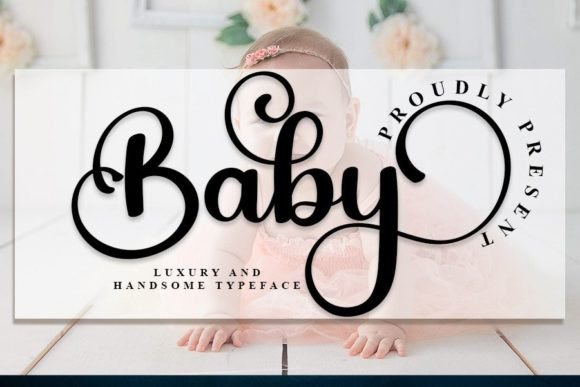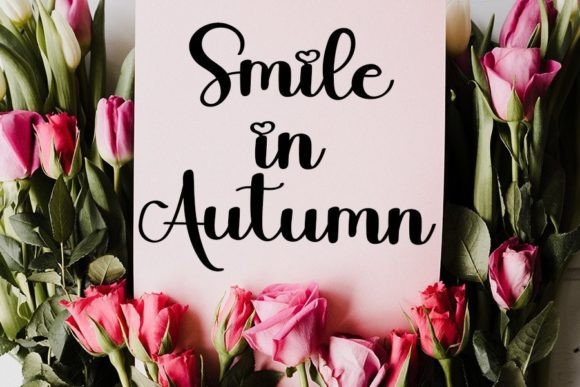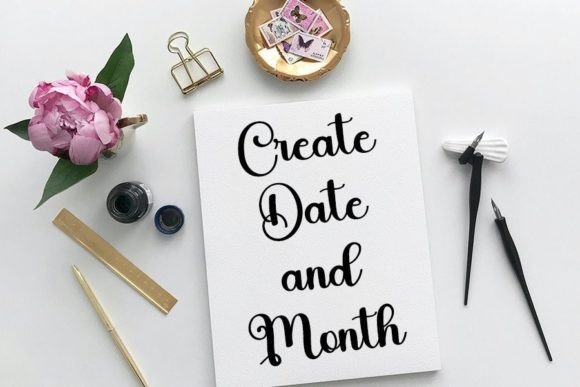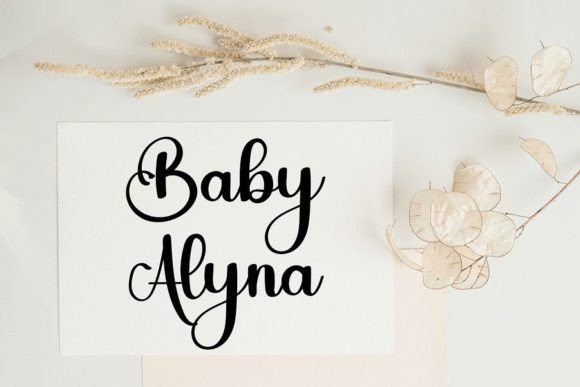
Baby Font
Baby is a beautiful and refined handwritten font. Classy and modern, it is perfect for logos, branding, invitations, stationery, wedding designs, social media posts, and much more!This font is PUA encoded, which means you can access all of the amazing glyphs and ligatures with ease!